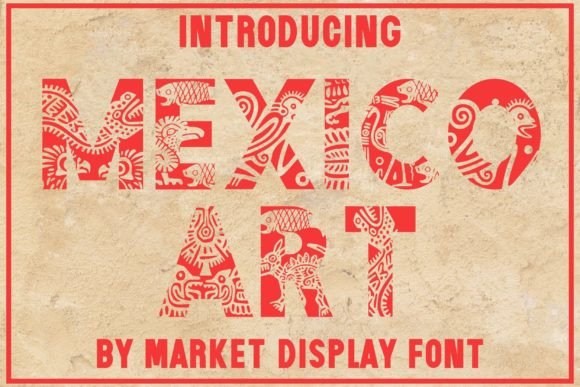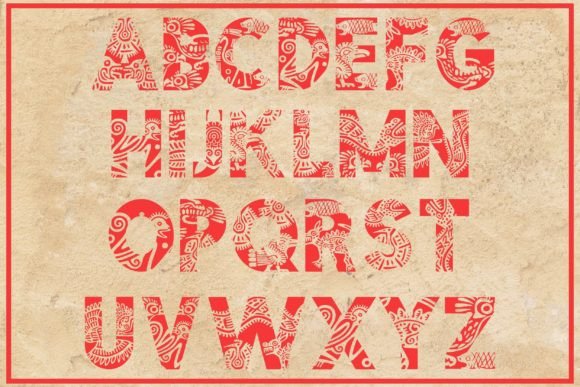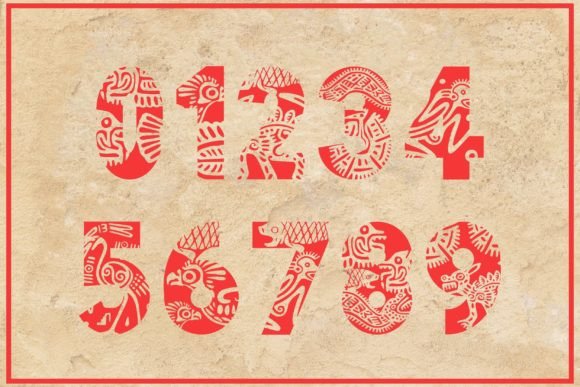
Mexico Art Font
About the Mexico Art Font
Let us introduce you to Mexico Art Font, where timeless design meets modern craftsmanship. Mexico Art is a bold and chic decorative font. This original look will appeal to a wide range of crafty ideas, from letterheads and titles to stationery.
Mexico Art Font excels in display applications such as headlines, logos, and short impactful text on posters or packaging. Its bold and decorative nature makes it unsuitable for body text or long-form content; readability suffers at smaller sizes. Consider using it for branding projects requiring a strong visual identity, particularly those with a connection to Mexican culture or a vibrant, artistic aesthetic.
This font’s chic and bold personality pairs well with clean sans-serif fonts like Montserrat or Lato for a balanced contrast. For a more playful feel, consider pairing it with a rounded geometric sans-serif such as Circular Std. A touch of elegance can be added by complementing it with a subtle serif like Playfair Display, used sparingly for supporting text.
Mexico Art’s overall personality is bold, chic, and expressive. It’s ideal for brands aiming for a memorable and impactful visual presence. Avoid using it in contexts demanding high legibility or subtle sophistication.
Mexico Art Font Usage Examples
Mexico Art Font Example